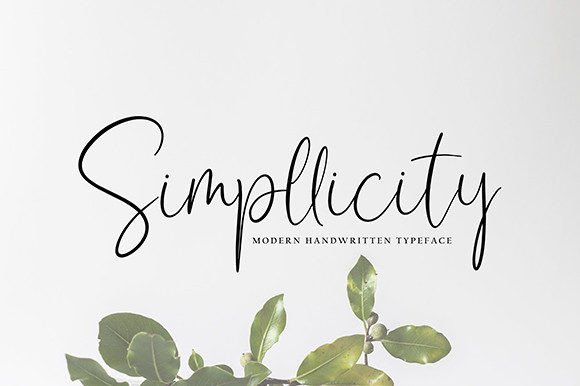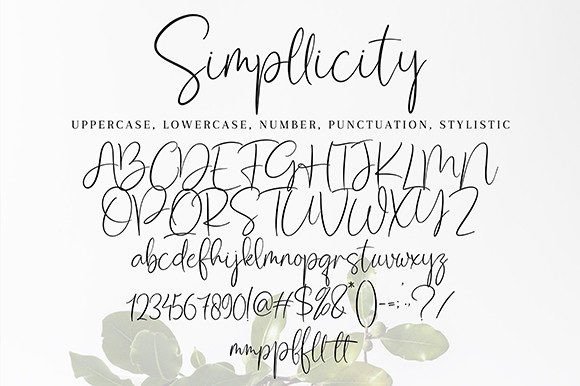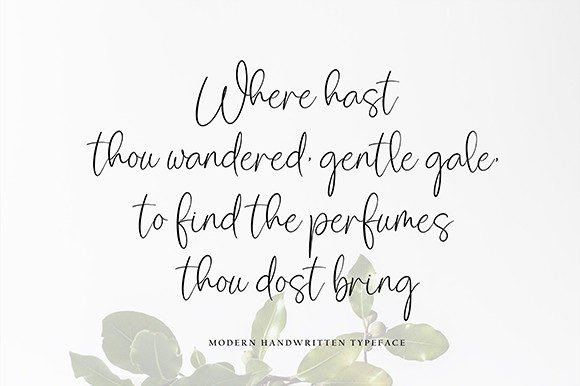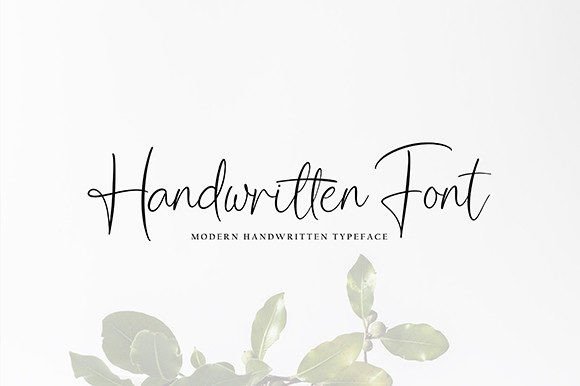
Simpllicity Font
About Simpllicity Font
Simpllicity is not just a font; it’s a statement of style. This stylish handwritten script font effortlessly blends an authentic, casual feel with a touch of sophistication. As you welcome Simpllicity into your font library, you’re embracing a versatile and captivating tool that will elevate your design projects to new levels of excellence. It’s more than a font; it’s a key to creating stunning, memorable designs.
What sets Simpllicity apart is its remarkable ability to convey elegance through simplicity. The font’s aesthetic captures the essence of timeless beauty while maintaining an inviting, casual charm. It strikes the perfect balance, making it suitable for a wide range of design projects, from the personal to the professional.
In the world of design, Simpllicity shines. It’s the perfect choice for crafting wedding invitations that radiate romance and grace, setting the stage for unforgettable moments. When used in thank you cards, Simpllicity conveys gratitude with heartfelt authenticity. Quotes and greeting cards come alive with the font’s handwritten charm, adding warmth and personality to your words.
In branding and logos, Simpllicity adds a touch of sophistication, making your brand identity stand out with a unique and memorable signature. Business cards take on a new level of professionalism with this font, leaving a lasting impression on clients and associates. It’s a versatile companion for a myriad of design projects, adapting seamlessly to various styles and themes.
Simpllicity’s versatility is its crown jewel. It effortlessly transitions from a formal and refined tone to a relaxed and friendly one, making it suitable for diverse creative endeavors. Whether your design requires a traditional or contemporary feel, Simpllicity can fulfill your vision.
In conclusion, Simpllicity is more than a font; it’s a design ally that empowers you to create visually stunning and memorable projects. Its unique blend of elegance and simplicity adds a touch of sophistication to your designs, making them truly captivating. Embrace the elegance of Simpllicity, and unlock a world of creative possibilities that turn your designs into timeless works of art.